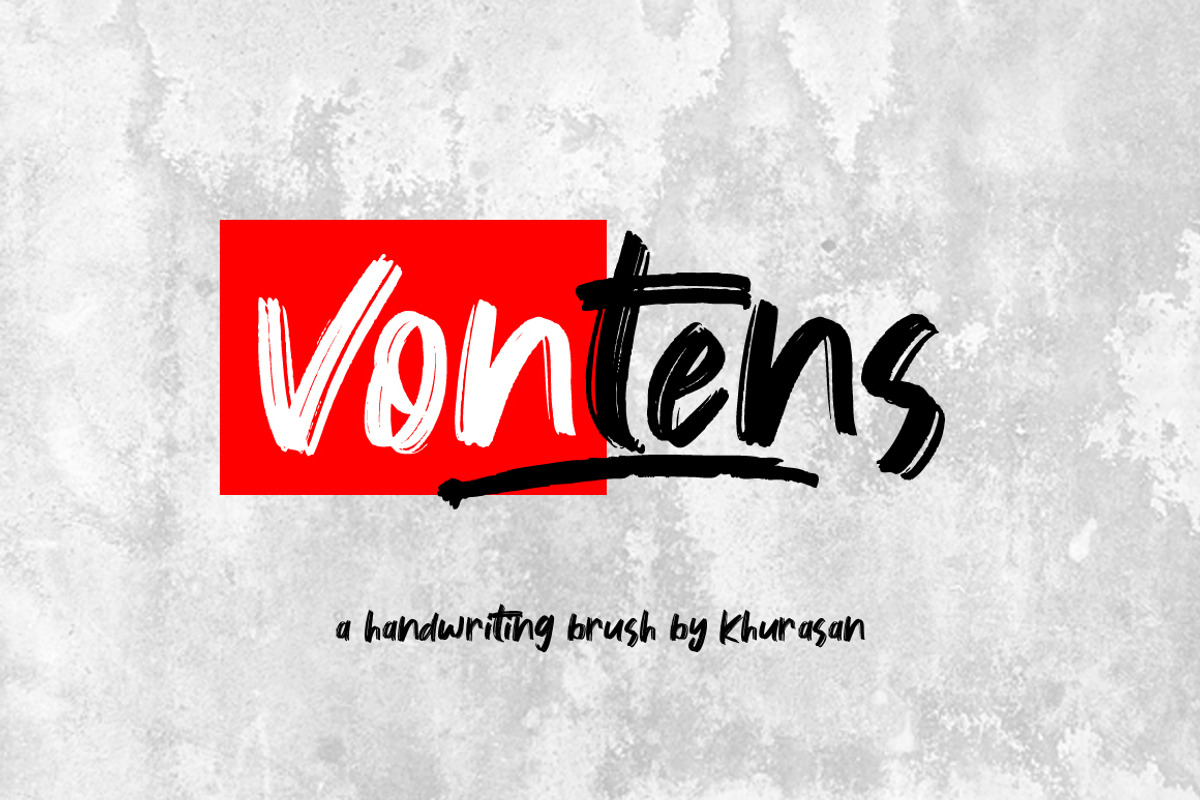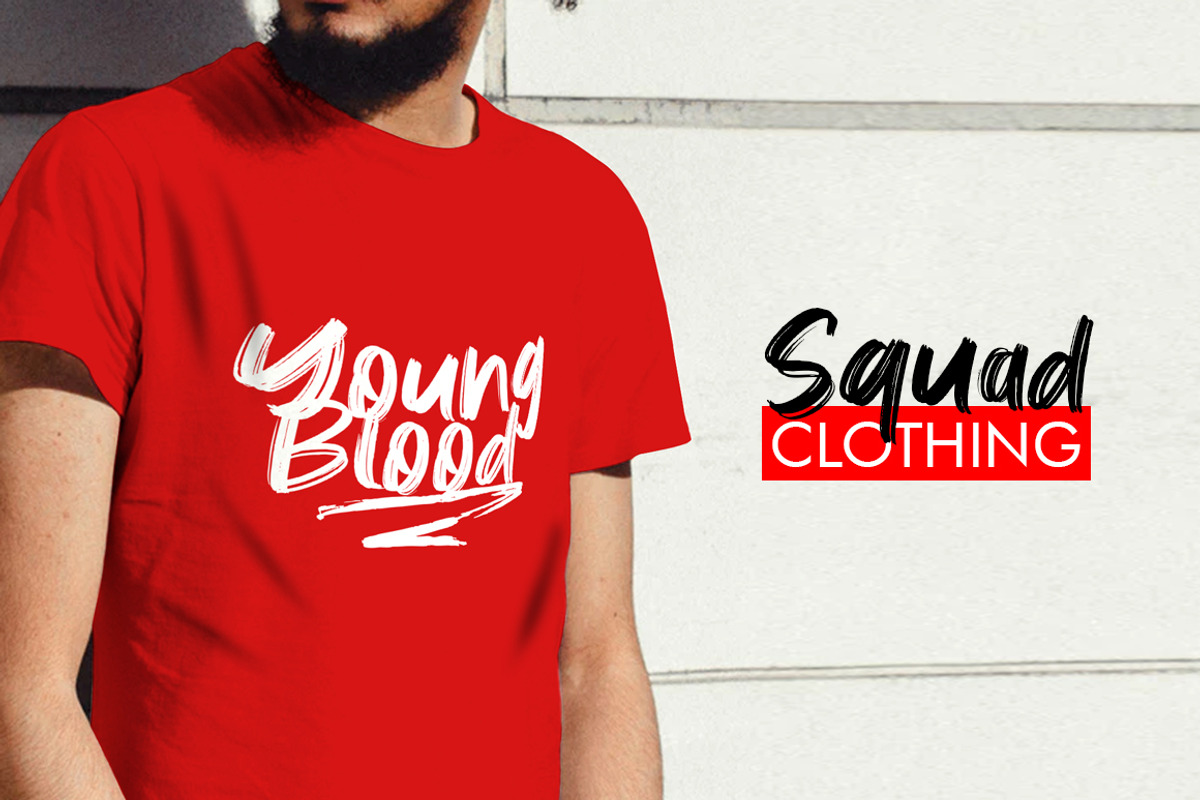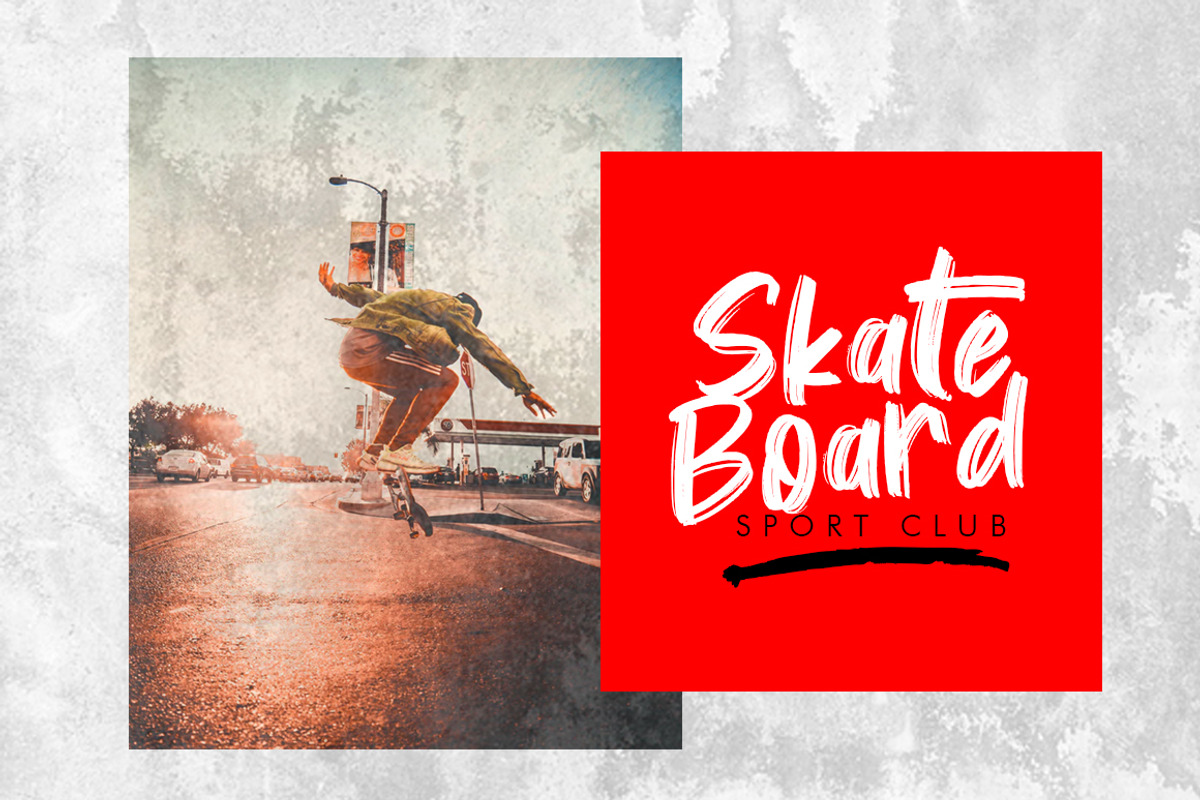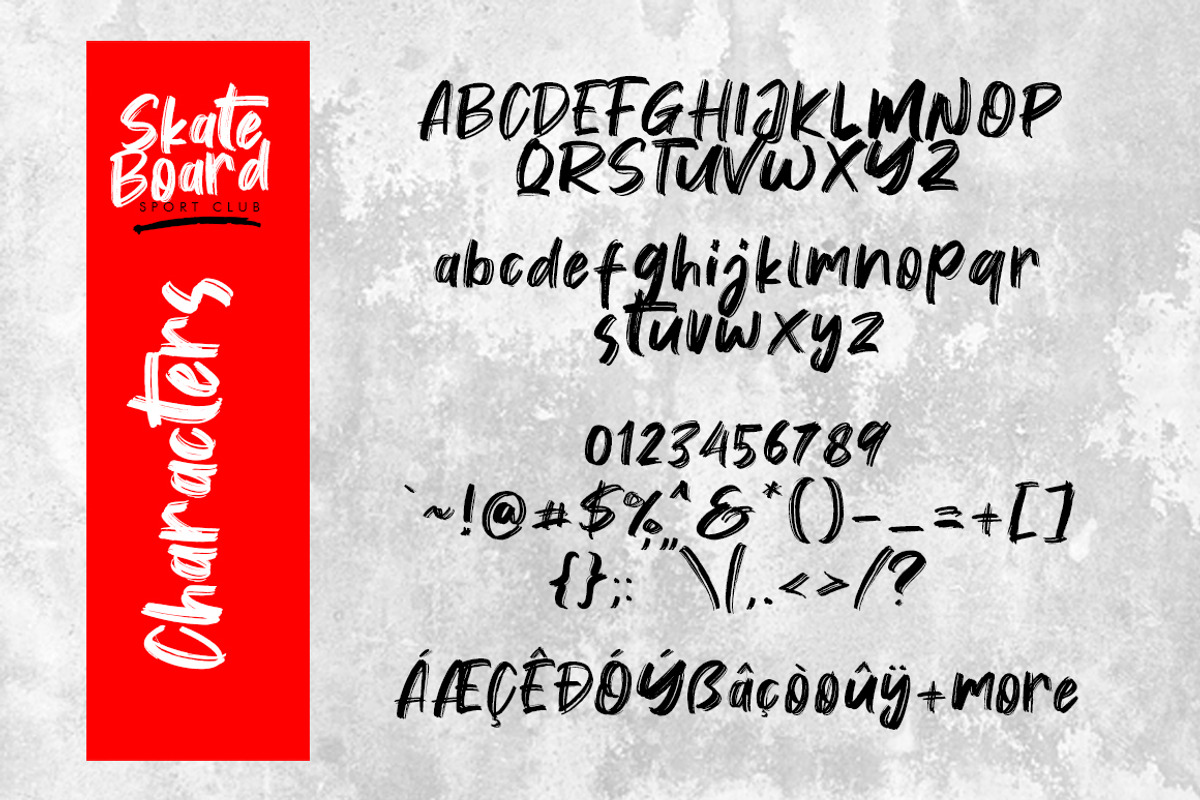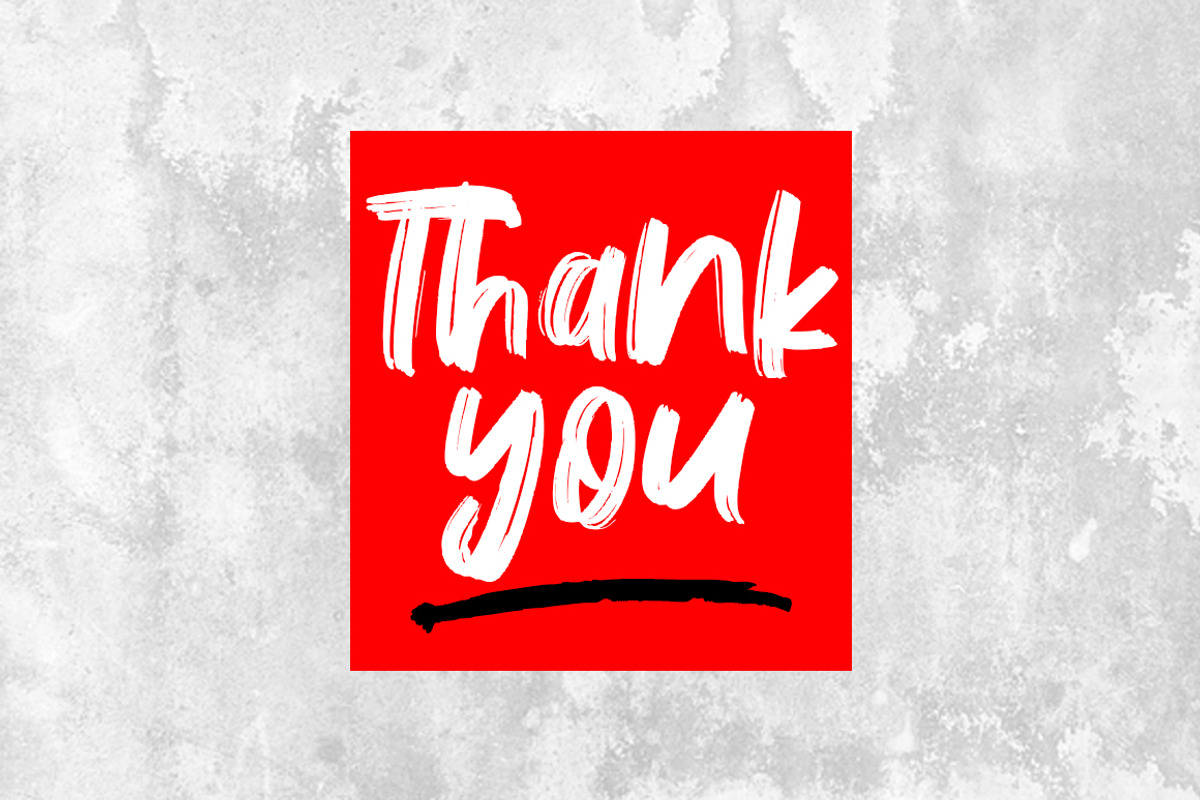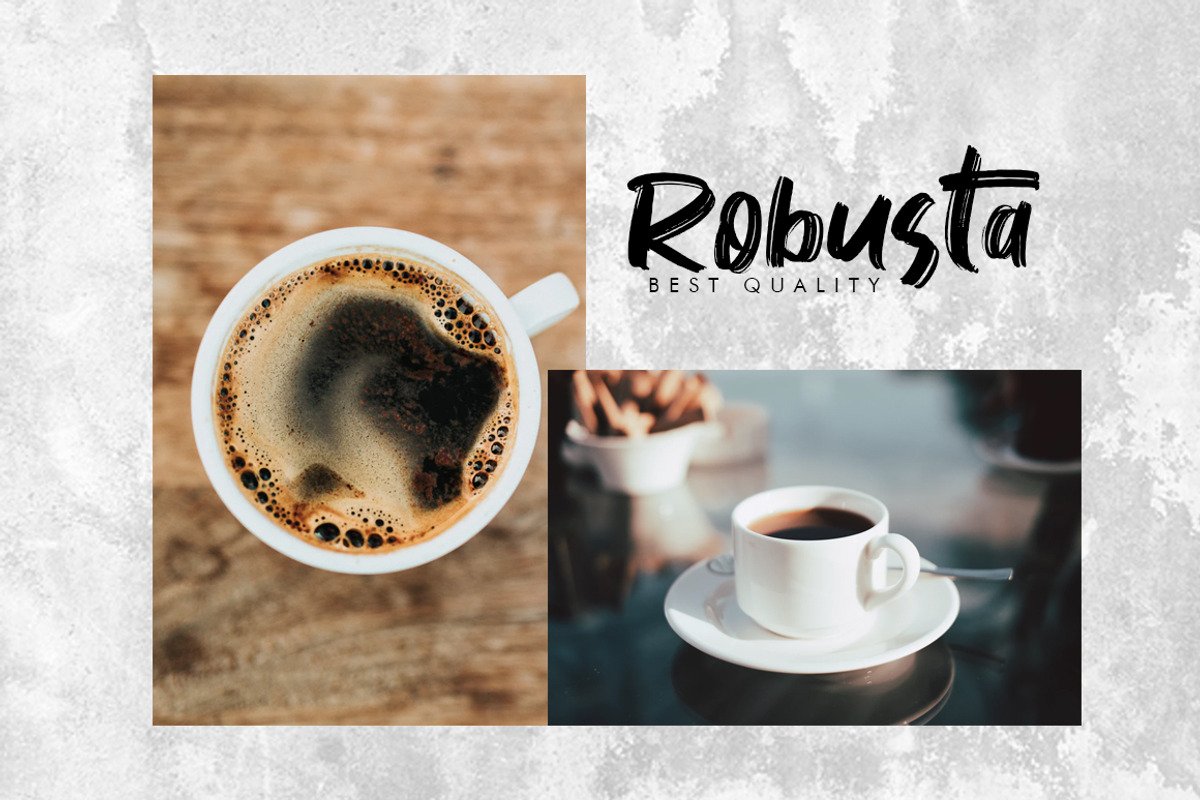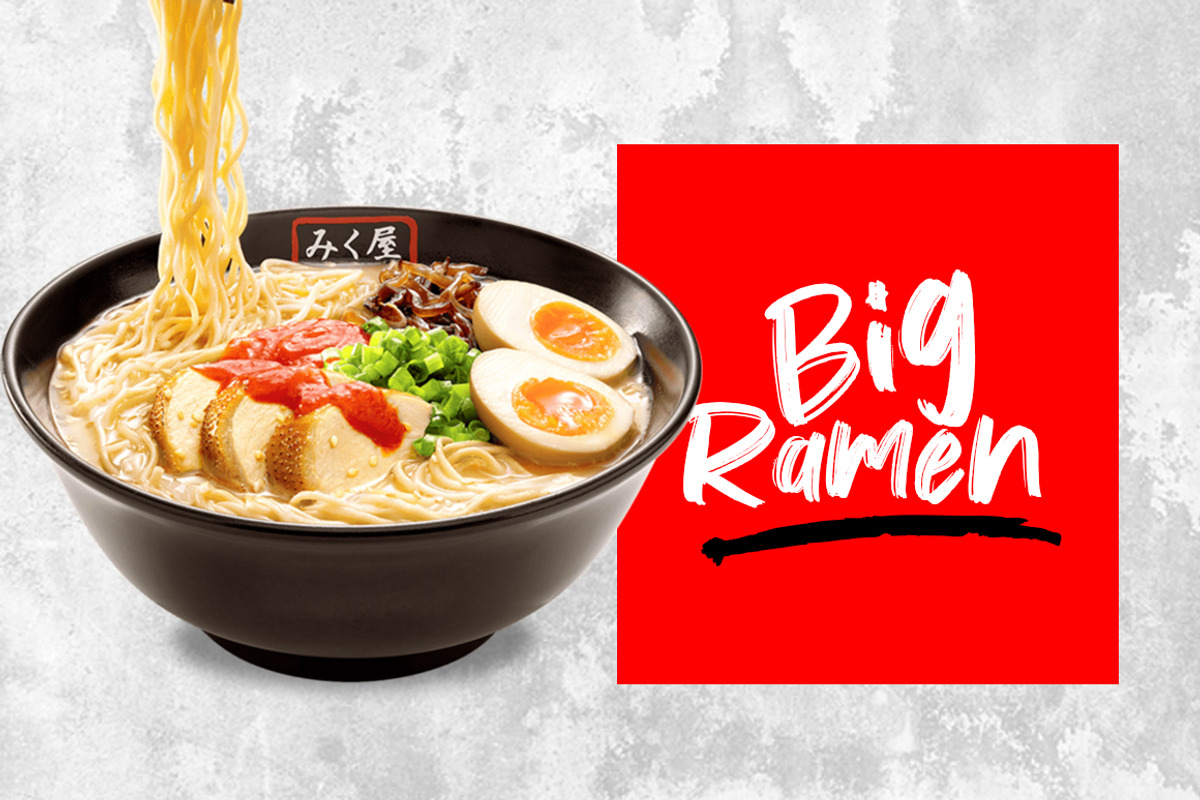
Vontens Brush Font
The Vontens is a fresh handwritten font brush, elegant and vintage feel character set. The Vontens font includes a full set capital and lowercase letters, as well as multi-lingual support, currency figures, numerals, & punctuation.
- The Vontens font includes a full set capital and lowercase letters, as well as multi-lingual support, currency figures, numerals, & punctuat
Why Vontens Brush Font is worth a look
Vontens Brush Font by khurasan fits naturally into Branding, posters, packaging, typography.